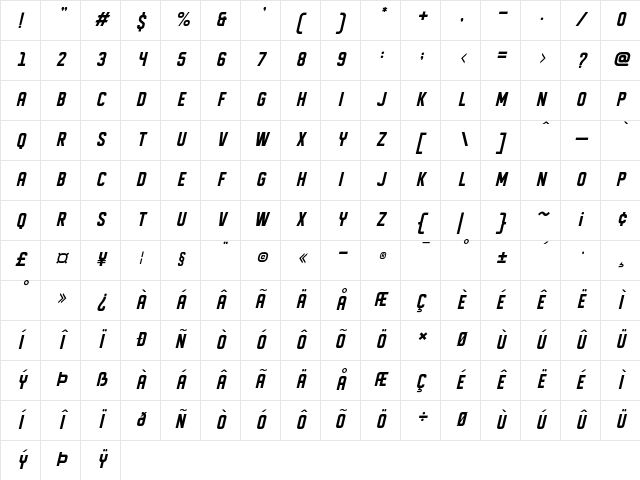
DISPLAYEDOblique Oblique
Design Context for DISPLAYEDOblique Typeface
DISPLAYEDOblique is built around its visual character rather than neutral utility — its distinctive forms are designed to make an impression at display sizes. Its italic angle brings a sense of urgency and motion to the letterforms.
Font Pairing: Pair with a clean neutral sans-serif for body copy to let DISPLAYEDOblique's character lead without overwhelming the composition.
Pro Tip: Treat DISPLAYEDOblique as the centrepiece of your typographic hierarchy. One strong heading set in a decorative face can carry an entire layout.